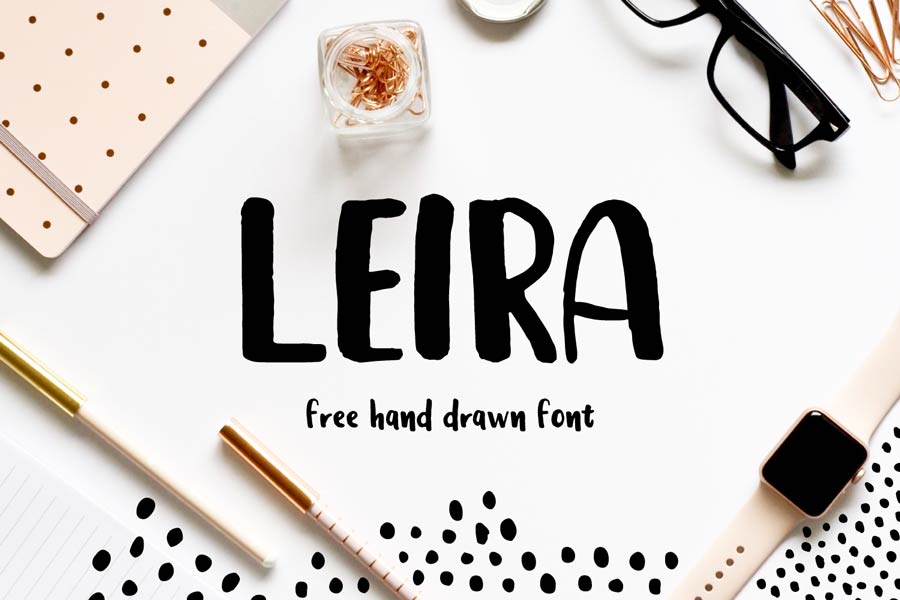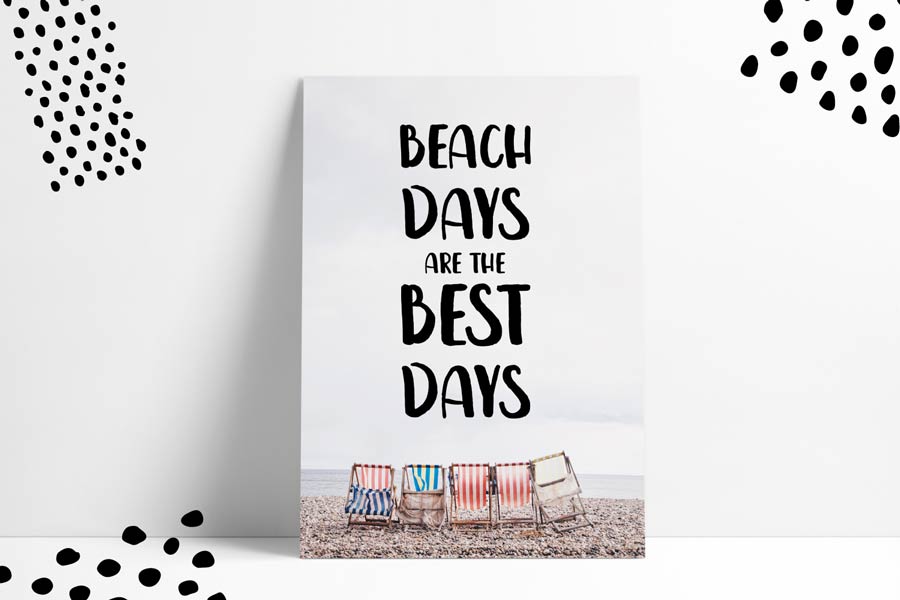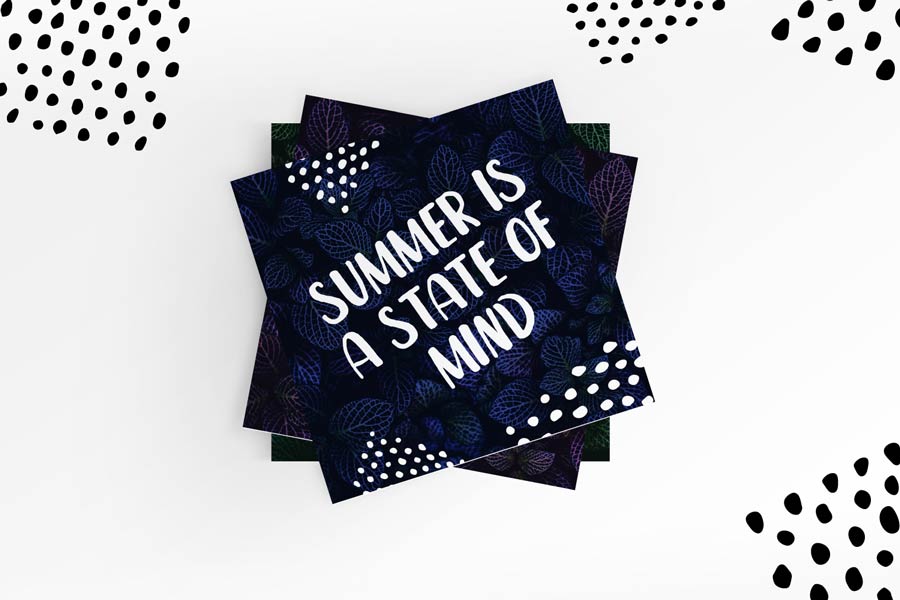
Leira is a hand drawn brush font free for download. This uppercase-only brush font was handwritten with brush and will give a dose of personal touch to your designs.
The characters are written boldly, and it’s a good choice for posters, invitation cards, packaging cards and more. You can download this font for free and use it for your personal and commercial projects.